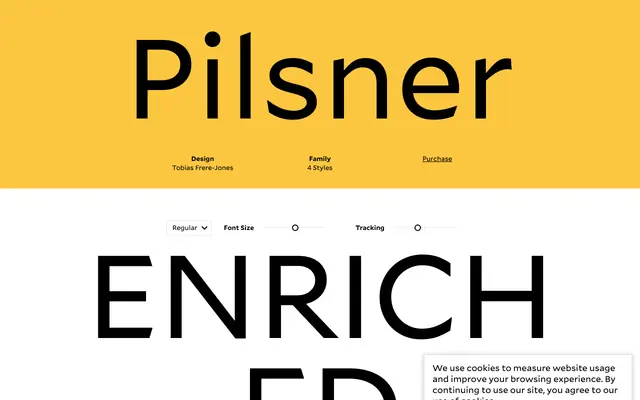
Pilsner
Frere-Jones · Tobias Frere-Jones
A faceted display face by Tobias Frere-Jones that eliminates all curves to bridge Roman and Blackletter traditions, with extra-long ascenders referencing Rudolf Koch.
Frere-Jones describes the design as stemming from a half-remembered beer label with lettering that read like a Roman letter wearing a Blackletter overcoat. By stripping out curvature entirely, the family draws on Vojtech Preissig's early experiments while the extended ascenders nod directly to Koch's mastery of both traditions. Four weights from Light to Black make it flexible for display use, but the unconventional structure keeps it firmly in expressive or editorial territory.
Pilsner bridges Roman and Blackletter traditions by eliminating curves entirely, replacing them with angular, faceted strokes. This places it firmly in the display category as a highly distinctive, historically referential design with no conventional serif or sans-serif structural basis.